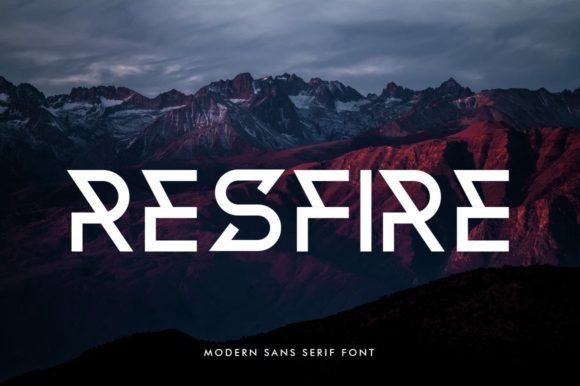
Introducing Resfire Font, the ultimate font for your wedding website. This exquisite sans-serif typeface exudes a captivating blend of futurism and modernism, making it the perfect choice to evoke emotions and create a lasting impression. Resfire's mesmerizing lowercase characters will elevate your website, transforming it into a captivating masterpiece.
Step into the realm of digital artistry with Resfire Font. Its sleek lines and sharp angles will instill a sense of sophistication in your designs. Whether you desire an eye-catching logo or an unforgettable wedding invitation, Resfire empowers you to craft visual masterpieces that resonate with your audience.
Immerse yourself in the versatility of Resfire Font. Its adaptability extends beyond wedding websites, seamlessly complementing any creative endeavor. Unleash your imagination and explore its potential in branding, marketing, and even personal projects. Resfire Font is your gateway to unlocking a world of boundless creativity.
Crafted by the renowned Vultype, Resfire Font embodies the pinnacle of typographic excellence. Its meticulously designed characters have been engineered to evoke emotions and leave an indelible mark on your audience. Embrace Resfire Font today and transform your digital presence into a breathtaking experience.